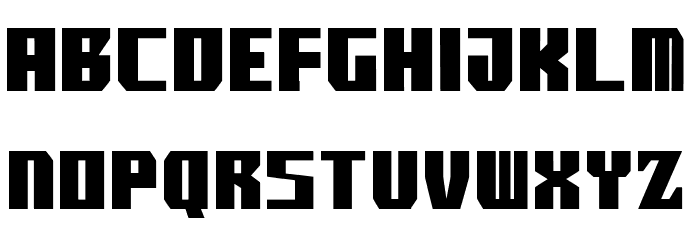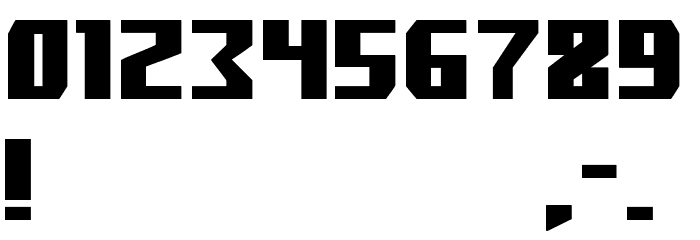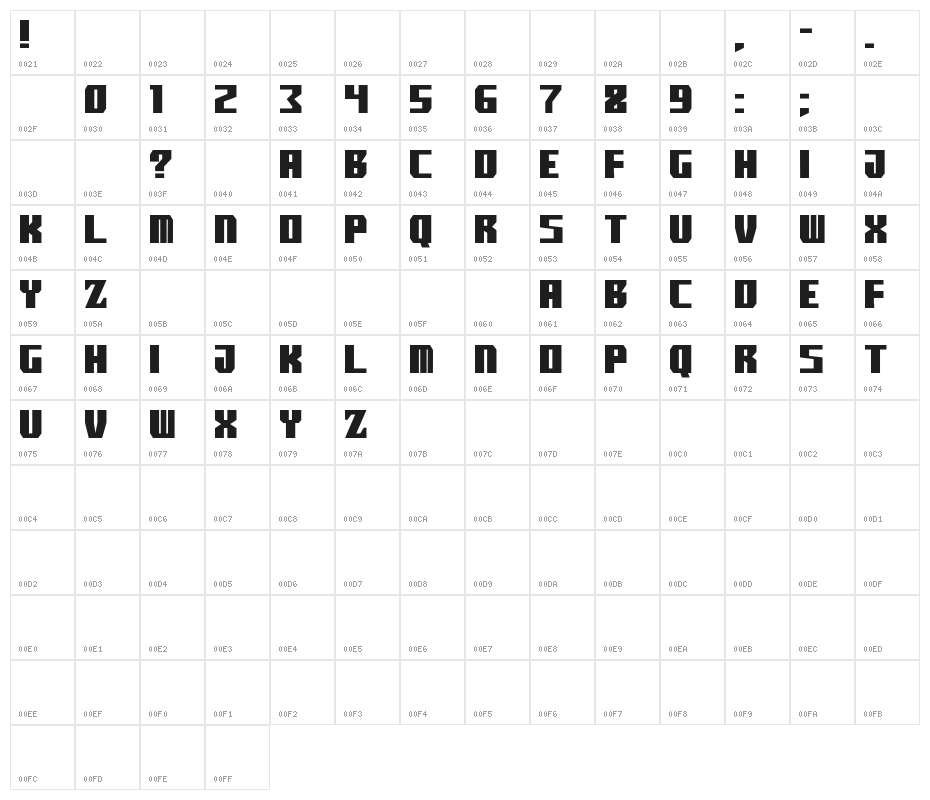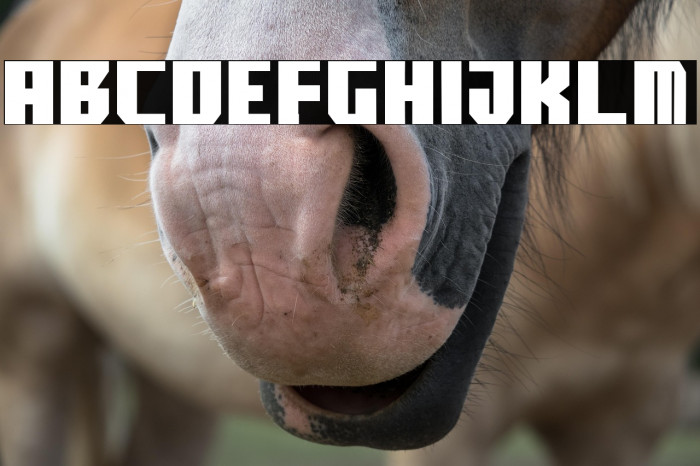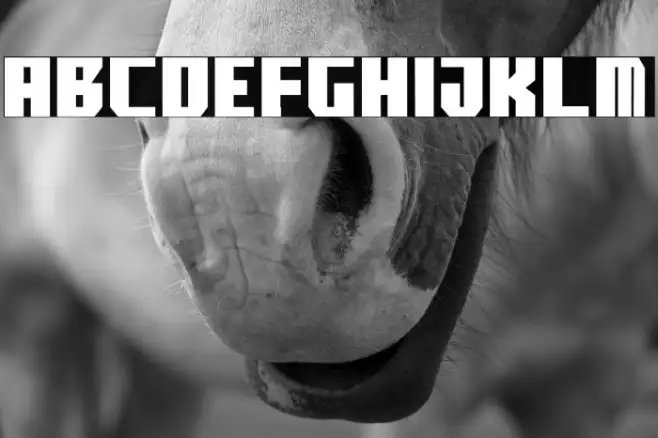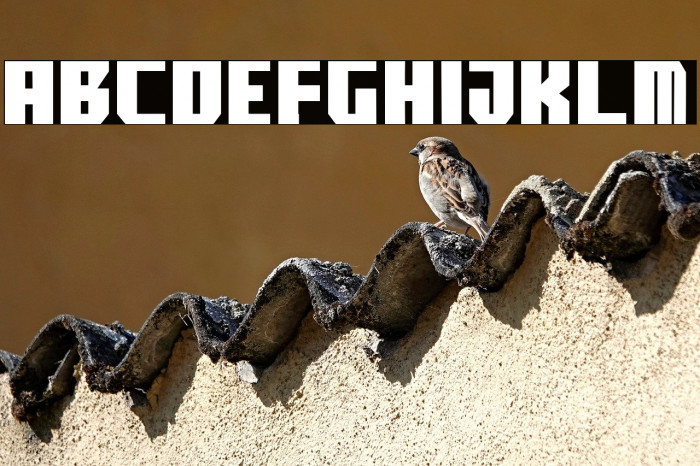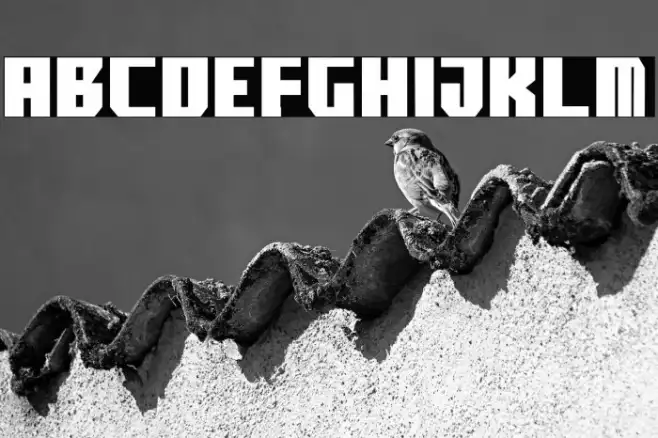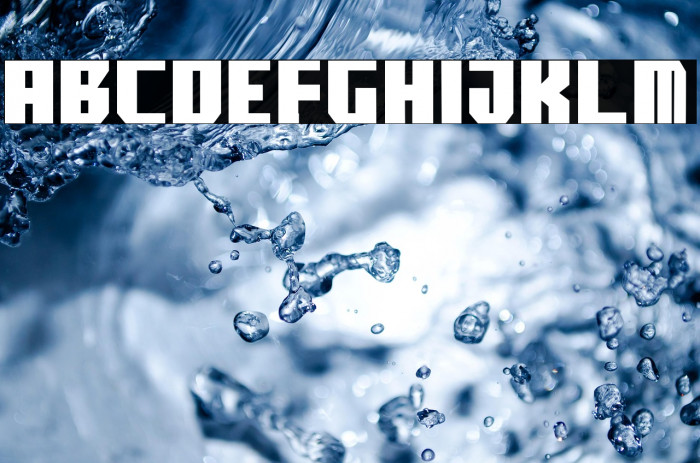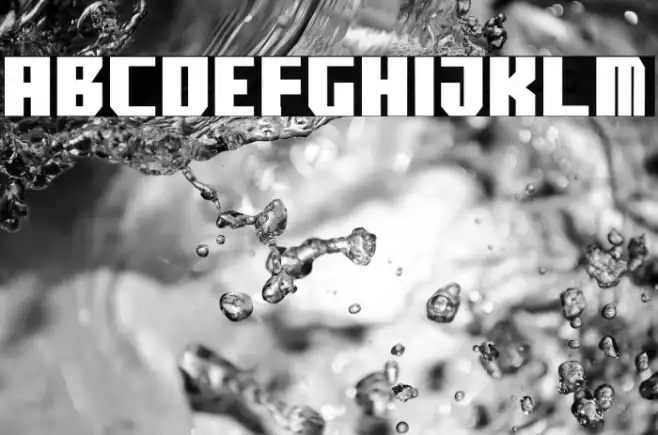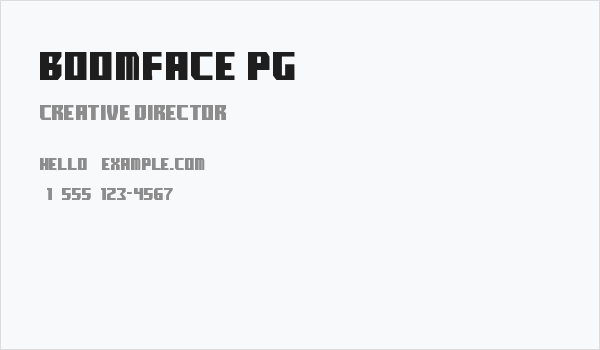
boomface pg Font
This font exhibits a bold and geometric style with strong, angular lines and a blocky appearance. The characters are uniformly wide, creating a sense of stability and strength. The uppercase and lowercase letters maintain a consistent height, contributing to a cohesive and structured look. The numerals and special characters follow the same design principles, ensuring uniformity across all glyphs. The font's design is reminiscent of industrial or futuristic themes, making it suitable for projects that require a modern and impactful visual presence.
A bold, geometric font with strong, angular lines and a blocky appearance.
- Font: boomface pg
- Proposed Projects: Ideal for use in posters, logos, video game graphics, and any project requiring a modern, industrial aesthetic.